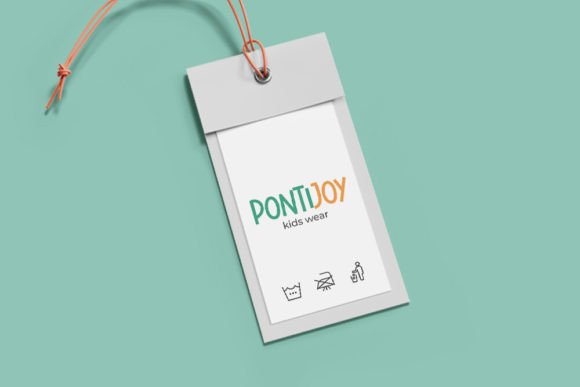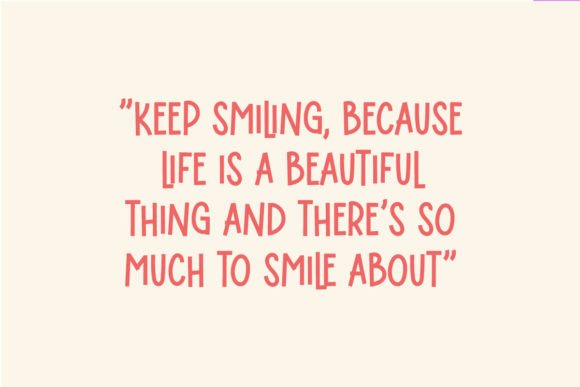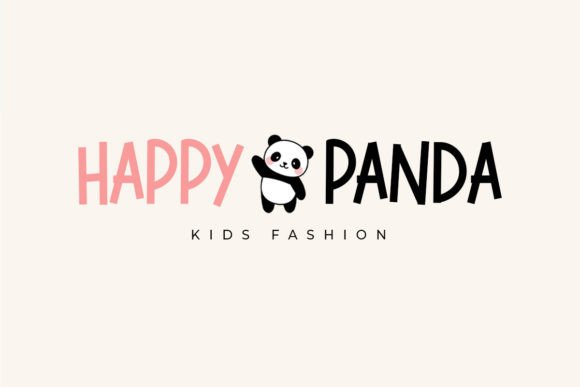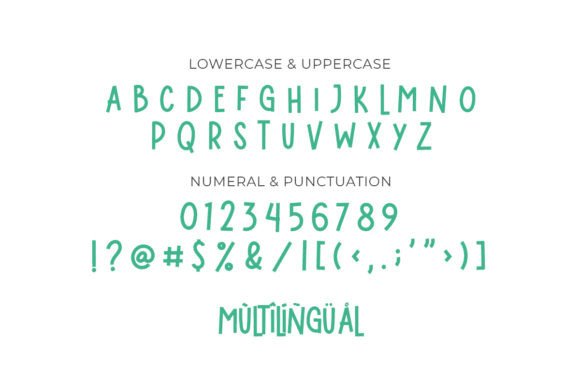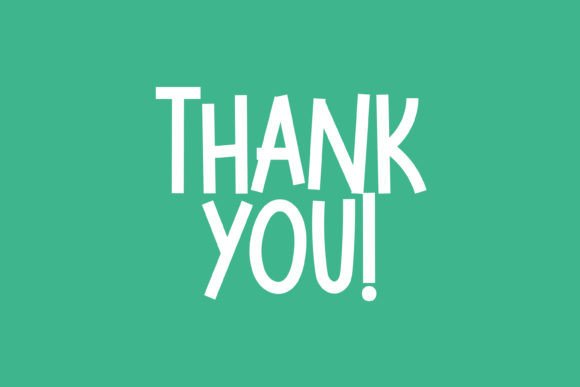
Introduction to Pontijoy Font
Pontijoy born from hand-lettered style combines fun and playful glyph with all-caps font; delivering a fancy hand draw that is guaranteed to add an eye-catching suitable for your quotes, logo designs, brand imagery, product packaging, merchandise & social media posts.
Key Features of Pontijoy Font
Why Choose Pontijoy Font?
Pontijoy Font offers exceptional quality and versatility, making it a valuable addition to your design toolkit. Whether you’re creating for personal projects or commercial use, Pontijoy Font delivers professional results.